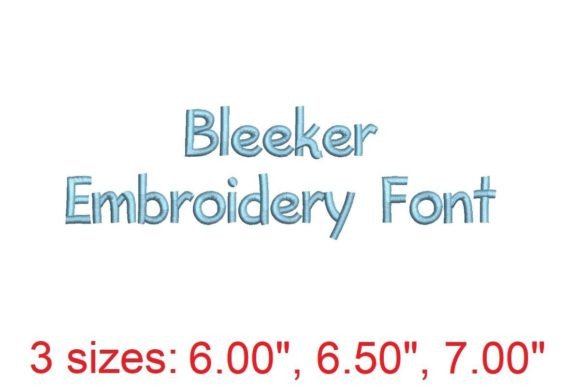
Bleeker Embroidery Font Review
As an embroidery designer who regularly works with personalized gift products, I always look for fonts that balance clarity, charm, and versatility. The Bleeker Embroidery Font caught my attention for its elegant structure and detailed character, making it a strong candidate for a wide range of custom items. Whether you're creating baby embroidery, wedding gifts, or handmade products, this font offers a refined aesthetic that can elevate your designs.
The First Impression: A Touch of Elegance
From the moment I viewed the Bleeker Embroidery Font, I was struck by its clean lines and soft curves. It carries a subtle elegance that feels both modern and timeless. This font has a warm, approachable vibe that makes it ideal for sentimental gifts like baby blankets, nursery decor, or heartfelt keepsakes. Its detail level is impressive, with each letter maintaining a sense of craftsmanship that translates well to machine embroidery designs.
For a personalized gift, the emotional appeal of Bleeker is undeniable. It feels like a handcrafted touch, which is essential when creating handmade products that customers will treasure. Whether used on an embroidered towel, a pillow cover, or a custom tote bag, this font adds a layer of thoughtfulness that resonates with buyers looking for meaningful items.
Where Bleeker Shines: Versatile Applications
The Bleeker Embroidery Font is incredibly adaptable. I’ve tested it on various fabric types and found it performs well on cotton, linen, and even lightweight knits. Its design allows for clear lettering even at smaller sizes, making it perfect for baby embroidery or custom order previews. For a small shop product, such as a personalized apron or a wedding keepsake, this font delivers consistent quality without sacrificing style.
It also works well for back-to-school items, like name tags or backpacks, where legibility is key. As an Etsy seller, I appreciate how this font can be used across multiple product categories—whether it's a custom embroidered blanket, a decorative pillow cover, or a unique craft fair item. Its adaptability means it can serve as a go-to choice for many different customer requests.
Careful Considerations: When to Use with Caution
While the Bleeker Embroidery Font is highly versatile, there are situations where it may require extra attention. For instance, when working with small lettering or delicate details, it’s important to ensure the stitch density is appropriate to avoid distortion. On textured fabrics or thick towels, the font may appear slightly less crisp, so testing on scrap fabric before production is always a good idea.
When using this font on stretchy baby clothes or curved surfaces, you may need to adjust the hoop size or use additional stabilizer to maintain the integrity of the design. Additionally, if you're working with dark fabric, check the thread color contrast carefully to ensure the text stands out clearly. These considerations are especially important when creating a finished product that will be sold as a commercial embroidery item.
Impact on Giftability and Customer Trust
The right embroidery font can significantly influence how a personalized gift is perceived. The Bleeker Embroidery Font enhances the giftability of any item by adding a sense of sophistication and care. Customers often associate high-quality embroidery with handmade products, and this font supports that perception with its refined appearance.
For an Etsy seller or a small business owner, this font can help build trust with buyers. A well-executed custom embroidery project can create a stronger emotional connection between the customer and the product. Whether it's a wedding gift or a family keepsake, the clarity and charm of Bleeker make it a reliable choice for creating memorable items.
Practical Tips for Using Bleeker Embroidery Font
To get the best results with the Bleeker Embroidery Font, I recommend starting with a few practical steps. First, test the design on scrap fabric to see how it looks in real conditions. Check the thread colors against the background fabric to ensure visibility. Confirm the hoop size needed for your project and review the stitch density to avoid overcrowding or gaps.
Using the proper stabilizer is crucial, especially when working with delicate or stretchy materials. Also, compare light and dark fabric mockups to see how the design appears in different settings. After stitching, double-check small details to ensure everything is clean and sharp. Lastly, confirm the commercial licensing terms before selling any finished products, as this is essential for digital embroidery files and printable mockups.
Final Thoughts: A Reliable Choice for Personalized Gifts
In conclusion, the Bleeker Embroidery Font is a solid option for anyone looking to enhance their personalized gift offerings. Its combination of clarity, charm, and versatility makes it suitable for a wide range of applications—from baby embroidery to wedding gifts and beyond. Whether you're an experienced embroidery maker or just starting out, this font can help you create beautiful, meaningful items that resonate with customers.